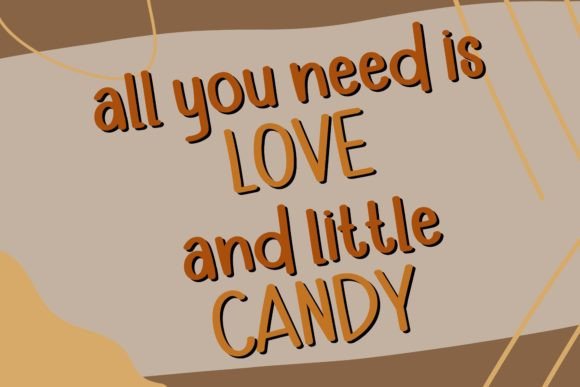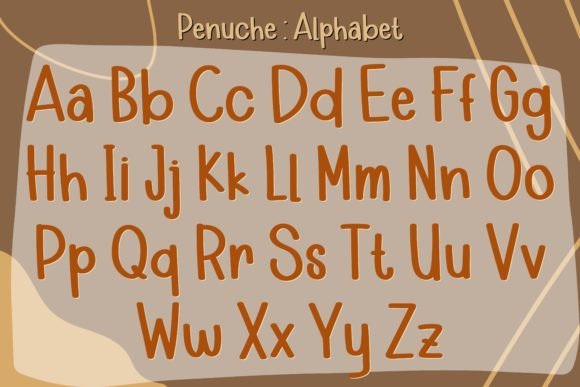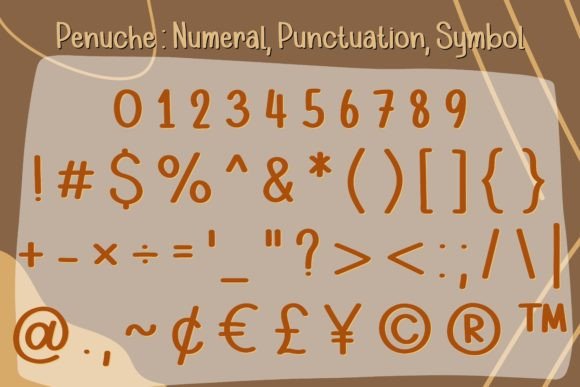
Introduction to Penuche Font
Penuche is a sans serif font designed in a friendly and lovely style.
It would be awesome for your diary planner and journal, and also perfect for back-to-school projects, party decoration, party invitations, festival decoration, posters, blogs, clothing, child-related designs, greeting cards, social media posts, or anything that needs a friendly touch Add it now to your fonts library, and it will bring any of your DIY projects to life.